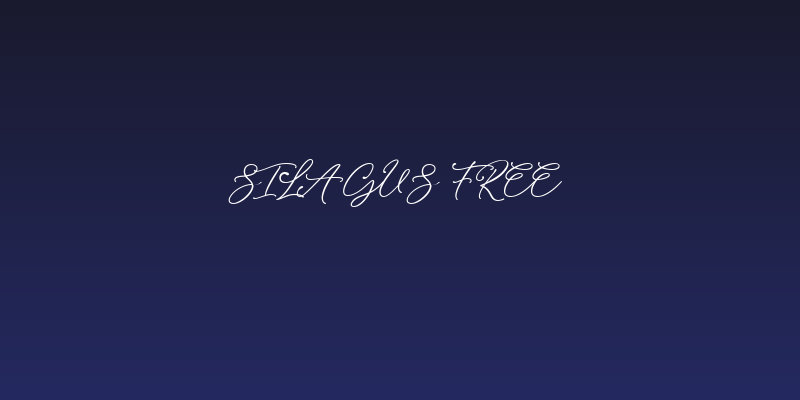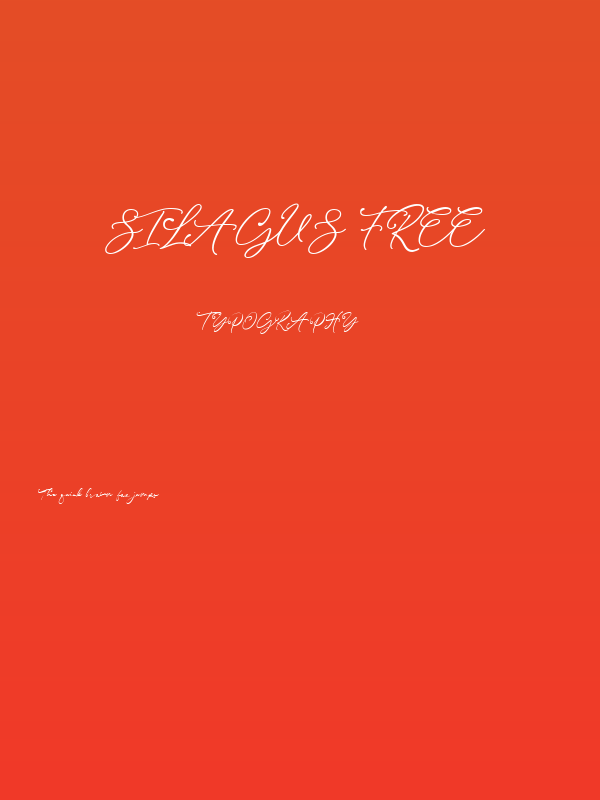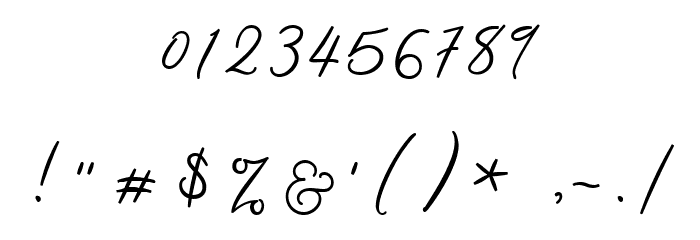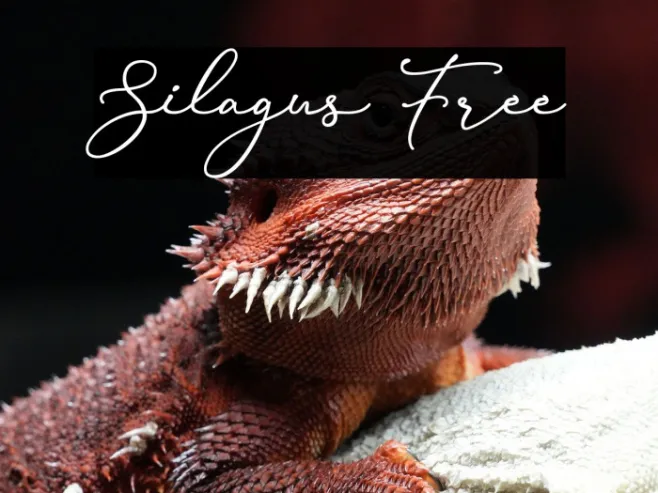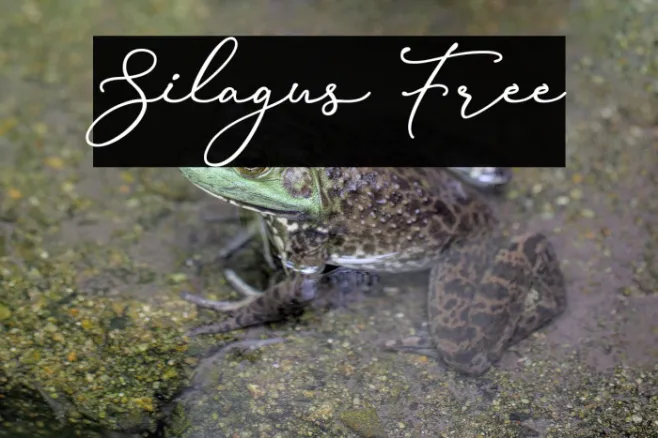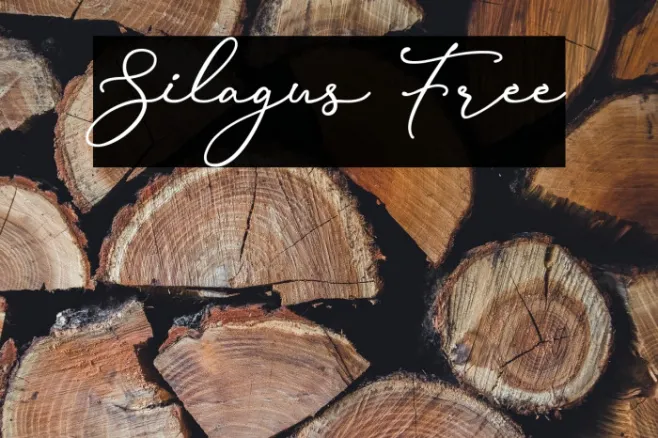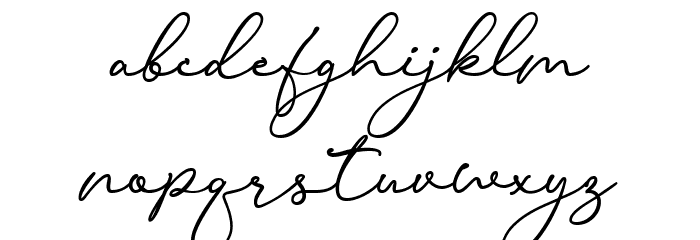
Silagus Free Font
Silagus Free Description
This elegant script font features fluid, cursive strokes that mimic the natural flow of handwriting. Each character is connected, creating a seamless and graceful appearance. The uppercase letters are slightly more ornate, with delicate loops and swirls, while the lowercase letters maintain a consistent, flowing style. The numerals and special characters are designed to complement the overall aesthetic, maintaining the same fluidity and elegance. This font exudes a sense of sophistication and charm, making it ideal for projects that require a personal touch.